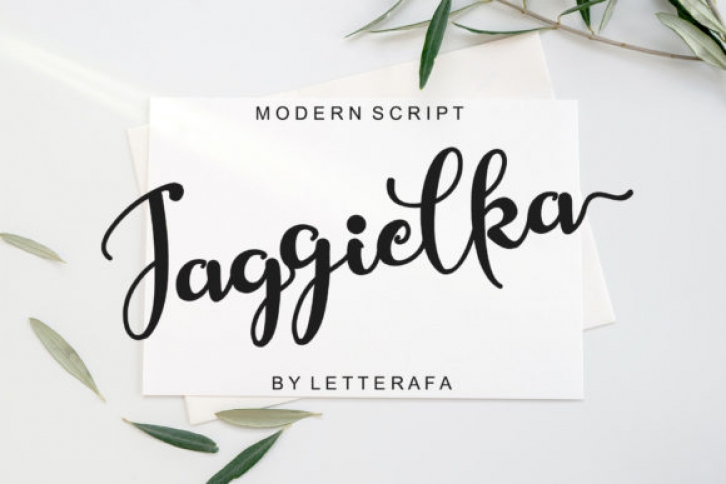
Jaggielka is a relaxed yet delicate calligraphy typeface with characters that dance along the baseline. It can be used for various purposes such as logos, wedding invitations, headings, t-shirts, letterhead, signage, labels, news, posters, badges and so much more. Jaggielka is PUA encoded which means you can access all of the glyphs and swashes with ease!